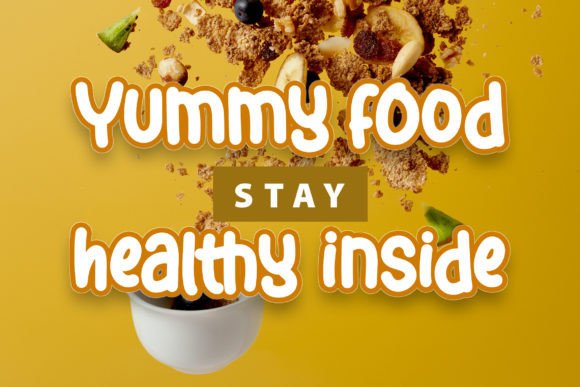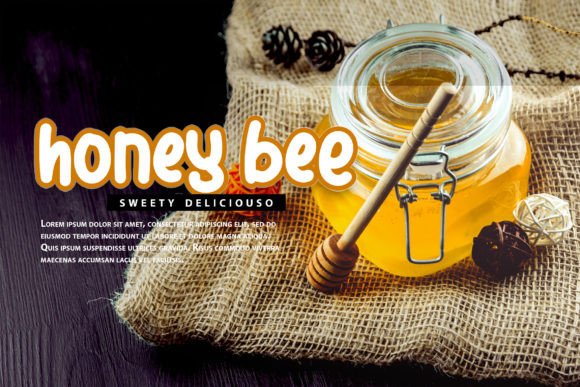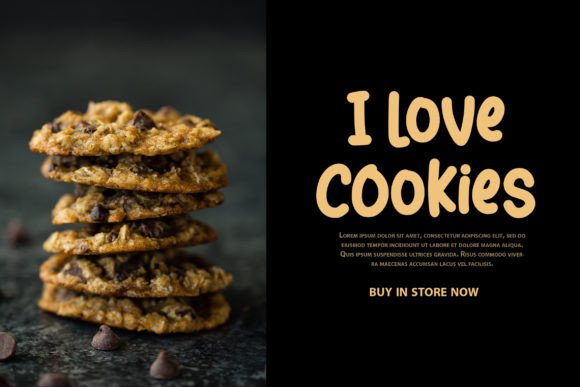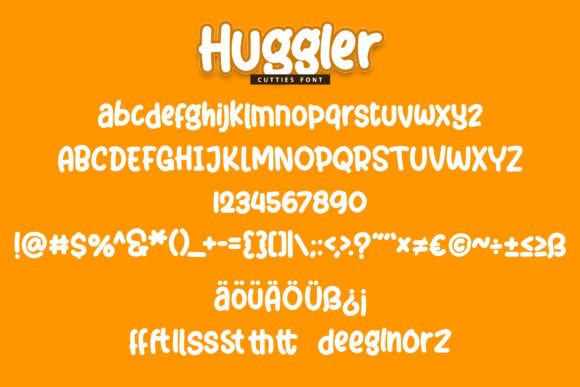
Introduction to Huggler Font
Huggler is a cool, incredibly cute, and bubbly display font.
Add it to each of your party invitations, swimming gathering, or pretty much any design that requires a touch of youth and joy .
Key Features of Huggler Font
Why Choose Huggler Font?